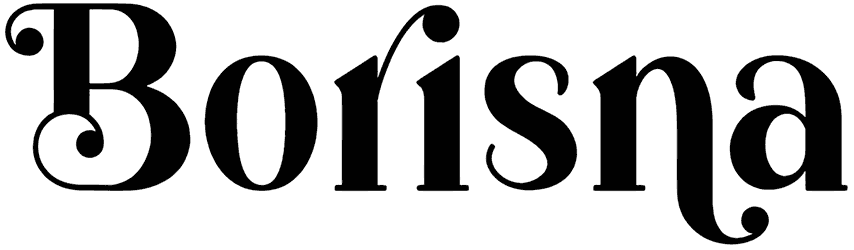
Borisna Font
When you set a classic and chic letterform on your words, the final draft is able to impress a lot of viewers, and this serif font has the power to make it happen. The Borisna font will adorn your words with a timeless and ravishing visual. We offer you to test this elegant font for your next projects, such as a classic cars magazine, and be salient.
Borisna – Modern Display Serif Font